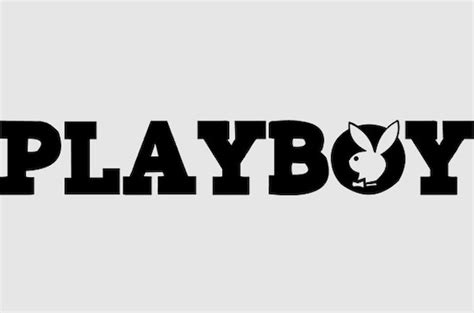
Playboy Text Font. Download the best free playboy fonts to add a stylish and sophisticated touch to your designs. Web playboy font is a custom design logo font with a custom bunny icon in the top.
Web playboy font is a custom design logo font with a custom bunny icon in the top. Download the best free playboy fonts to add a stylish and sophisticated touch to your designs. So, what font is used in the famous playboy.
So, what font is used in the famous playboy. Download the best free playboy fonts to add a stylish and sophisticated touch to your designs. Web playboy font is a custom design logo font with a custom bunny icon in the top.